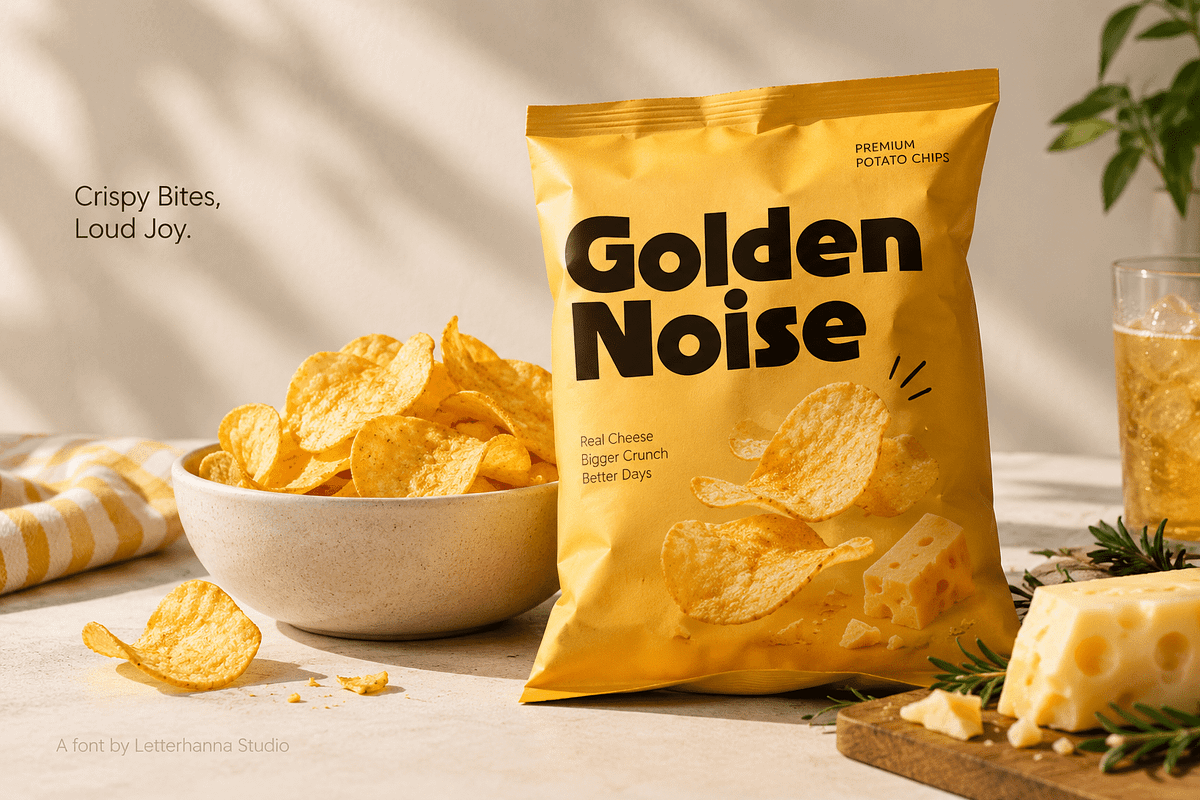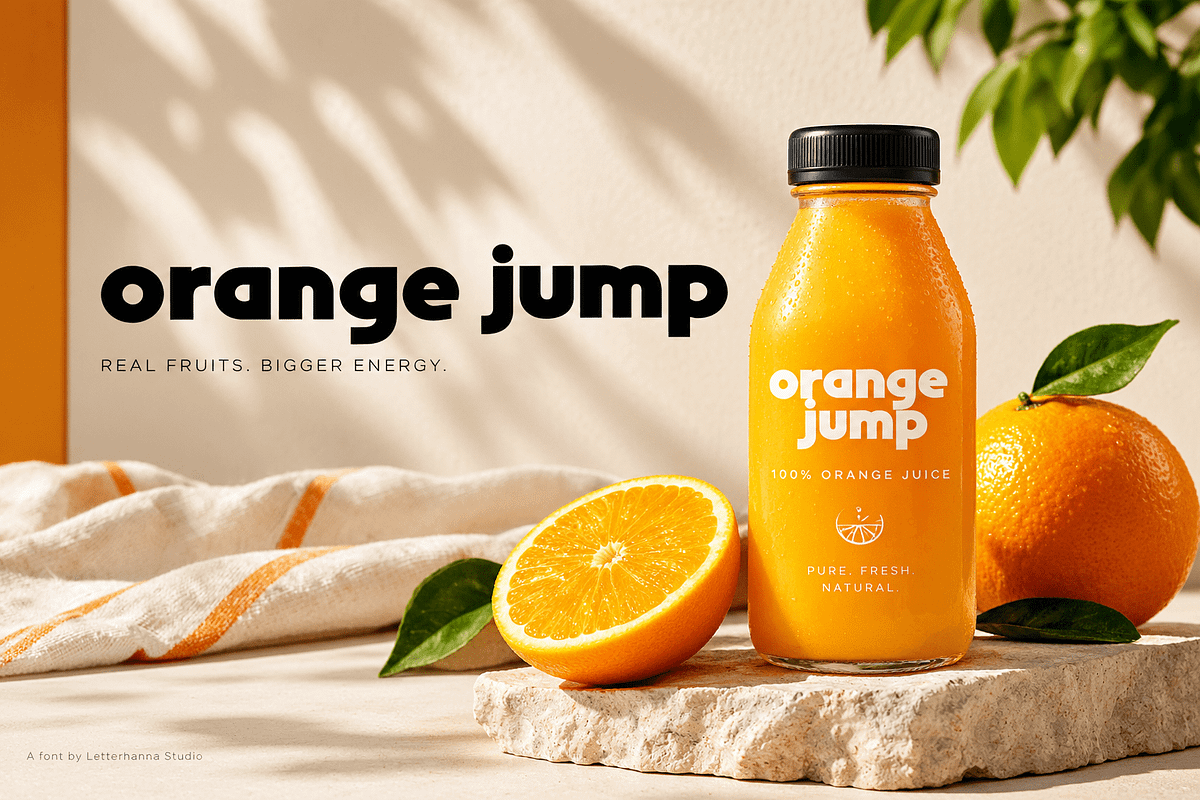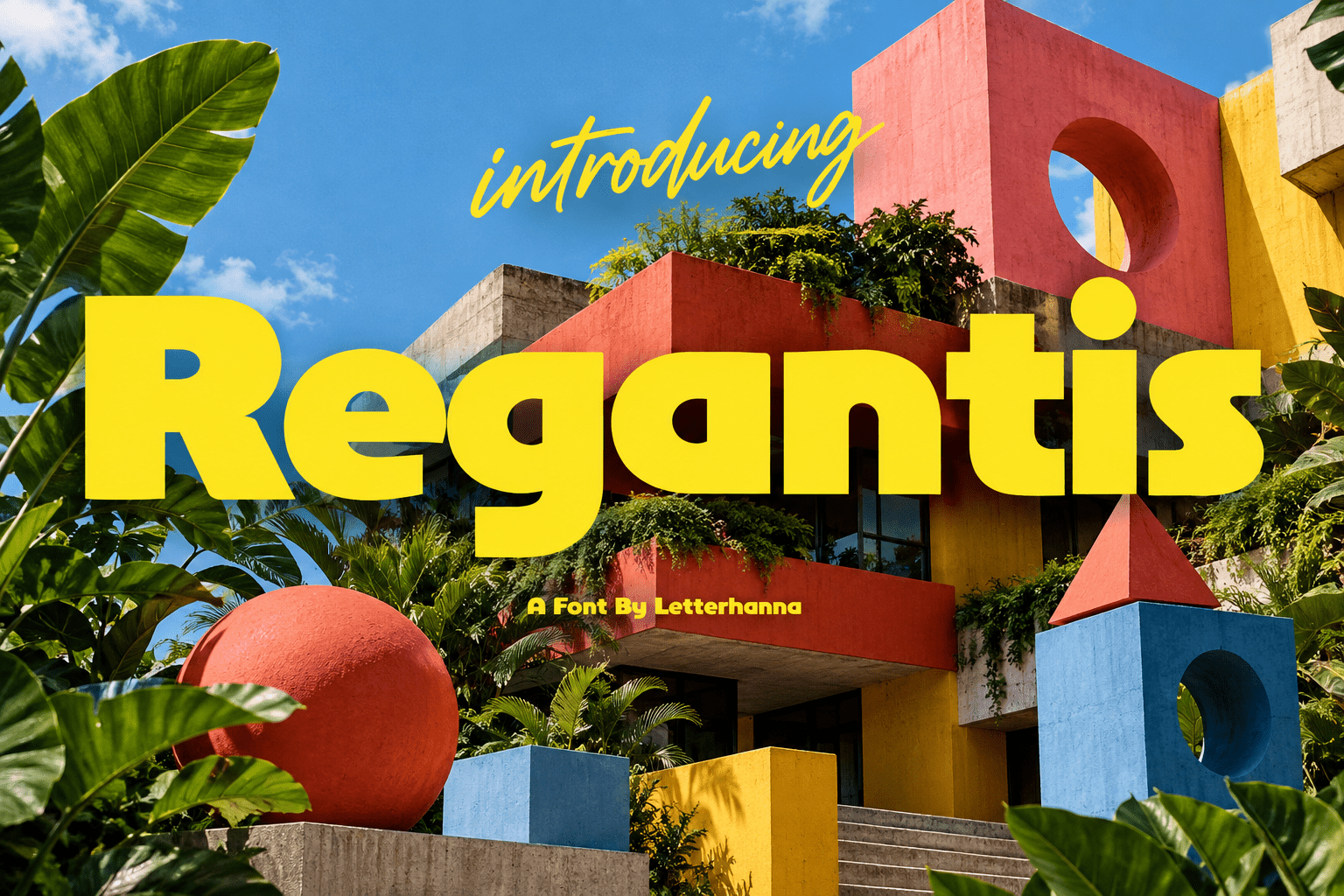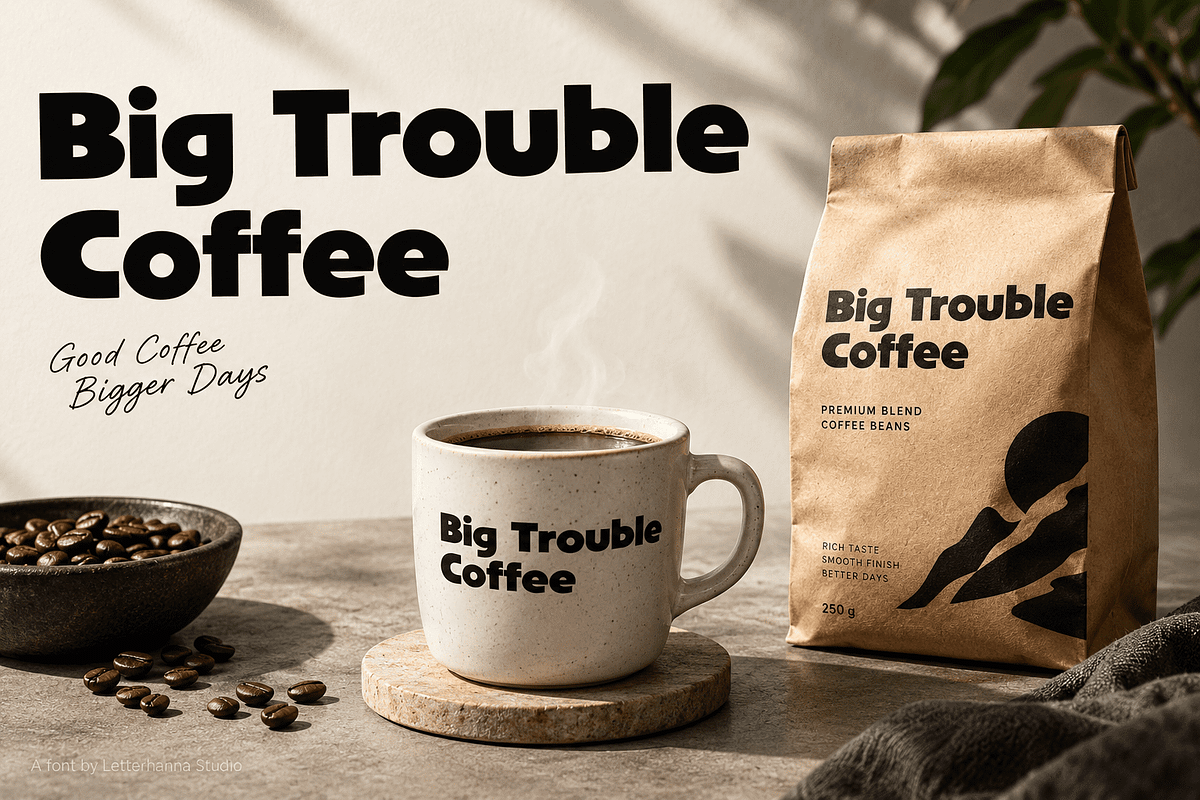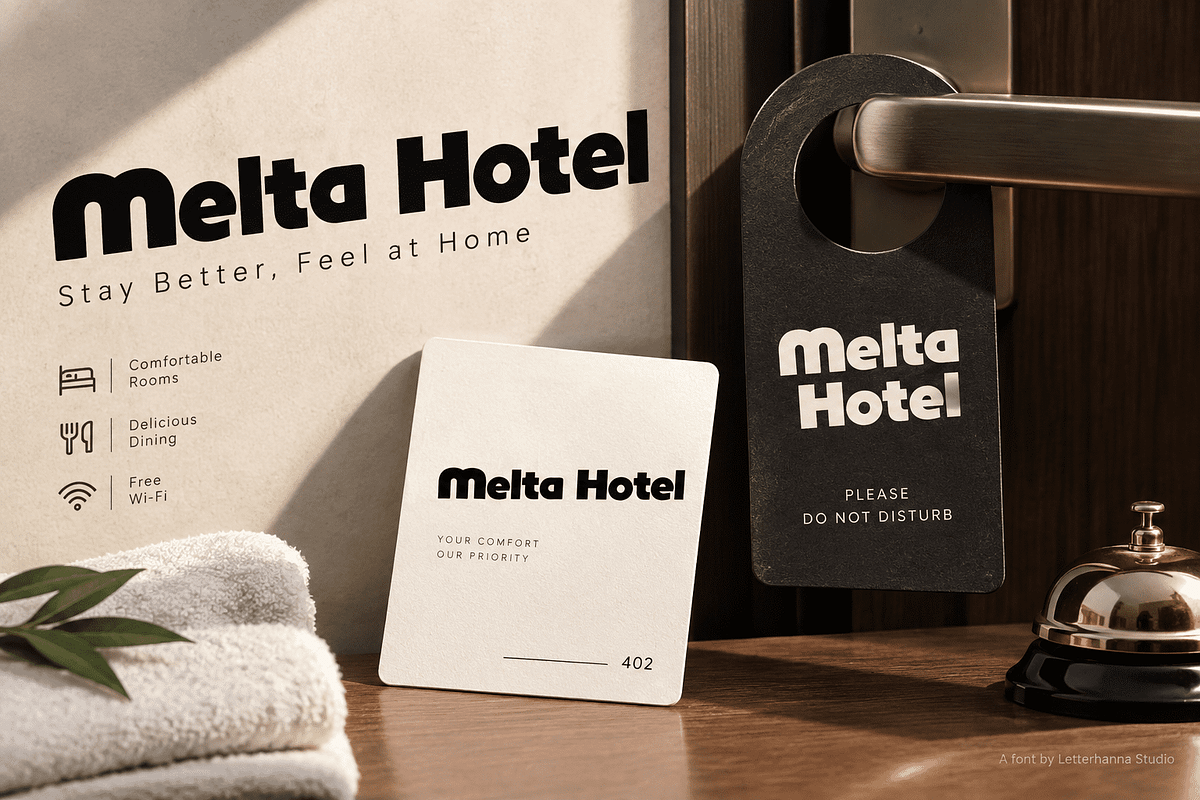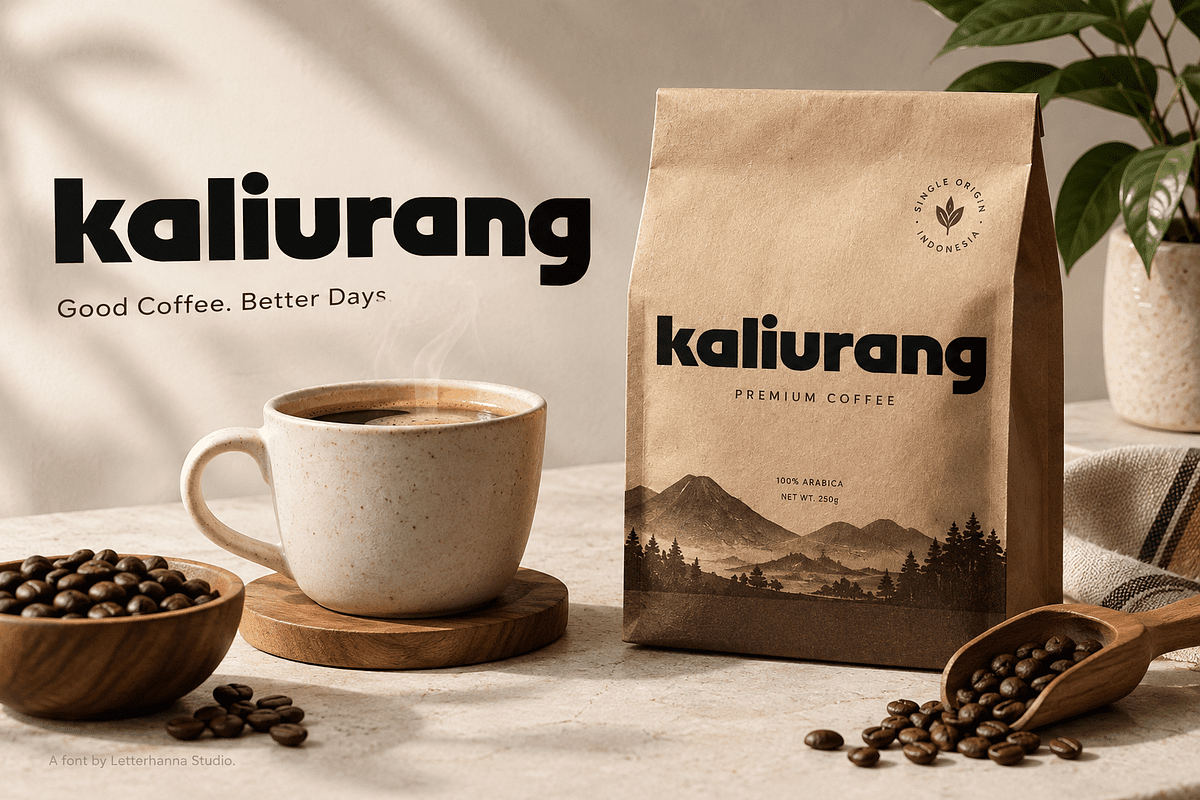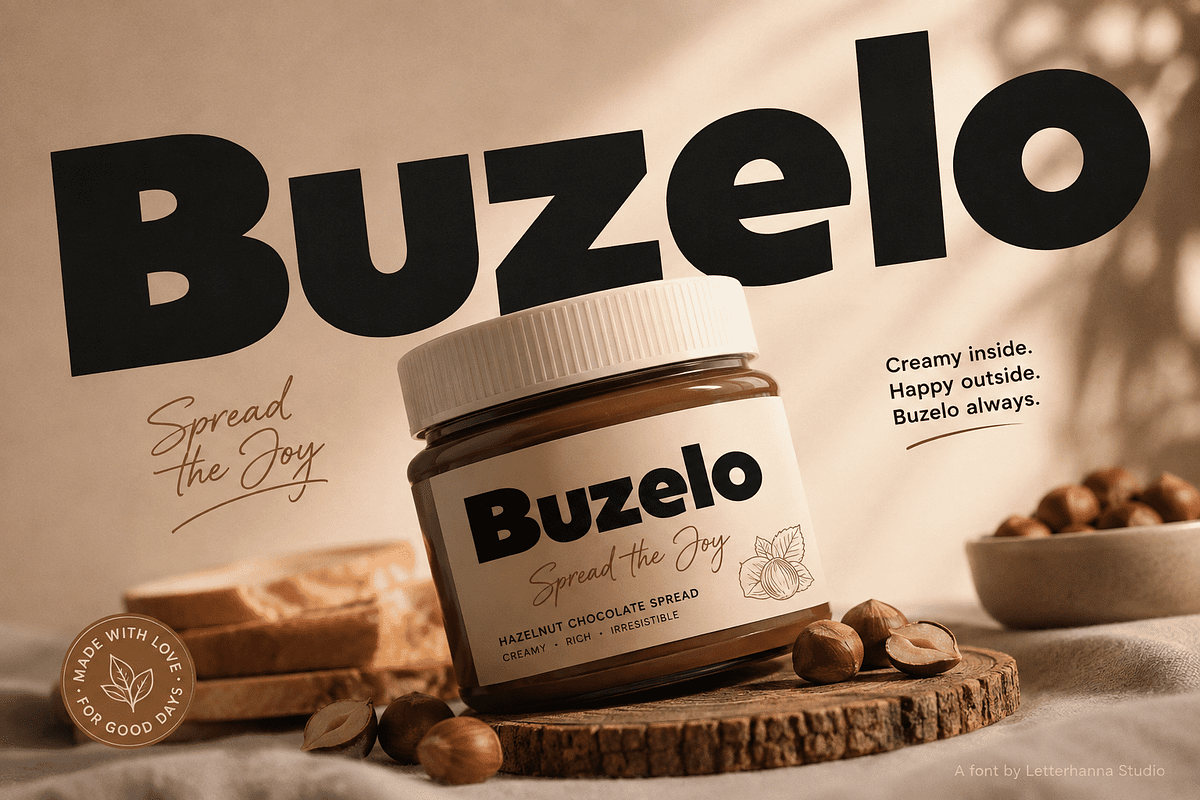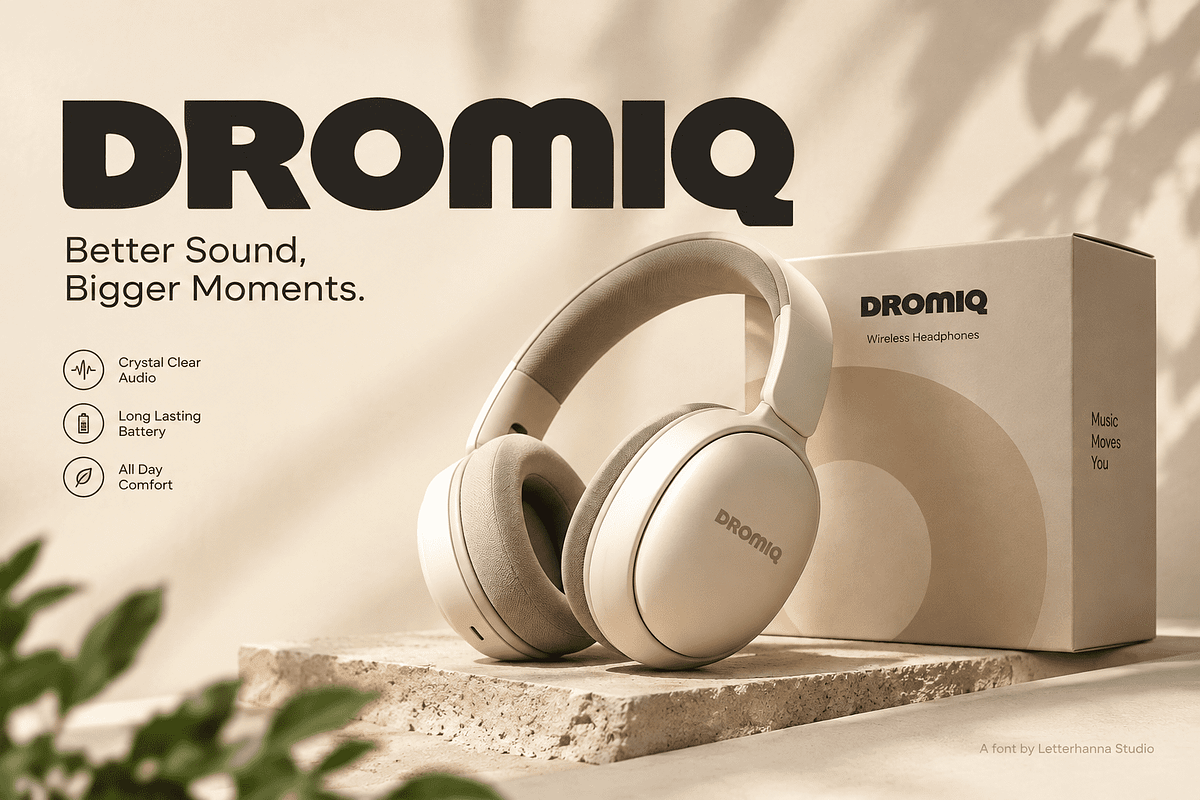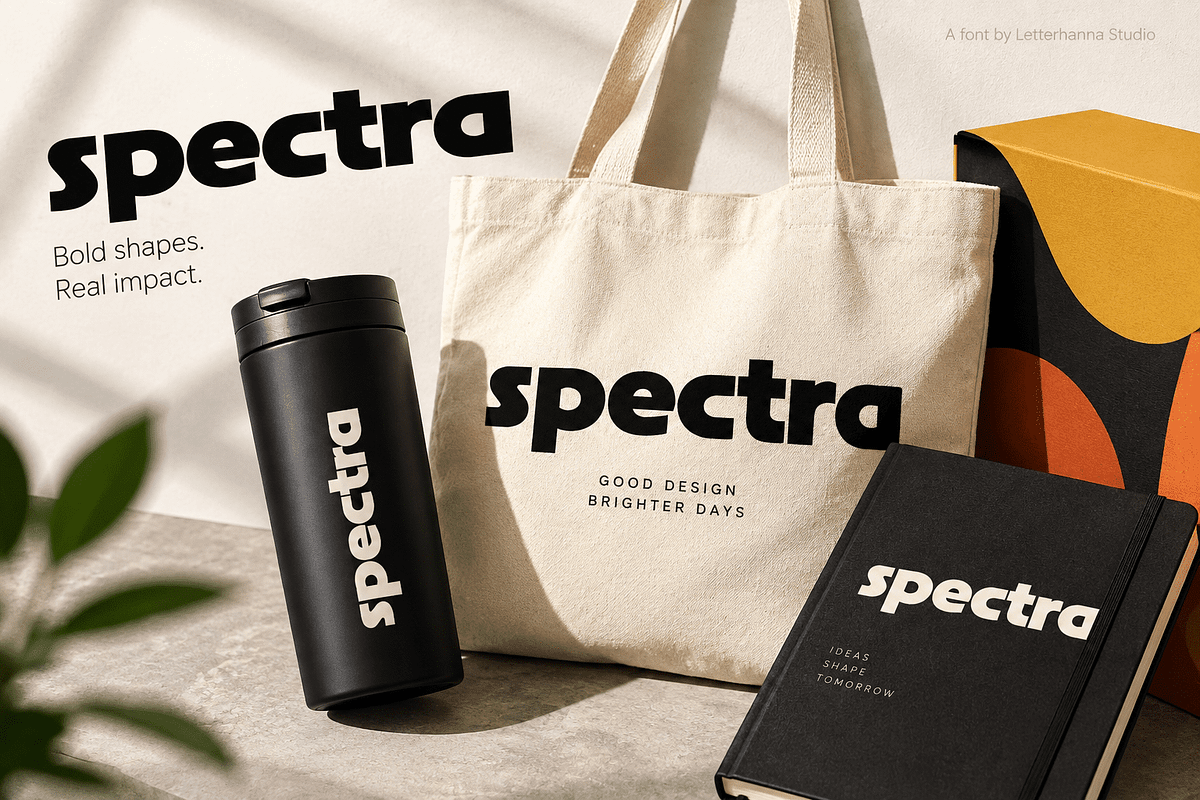
Regantis Geometric Font
What happens when geometric structure meets oversized, playful shapes?
You get Regantis—a bold display typeface created for designs that refuse to blend into the background.
Regantis uses strong geometric construction, thick strokes, rounded forms, and distinctive negative spaces to create an instantly recognizable appearance. It feels modern, experimental, quirky, and confidently unconventional.
More Than Just a Bold Font
A good bold font grabs attention. A great one gives the viewer a reason to keep looking.
Regantis pushes familiar geometric forms into exaggerated proportions, creating a visual rhythm that feels both structured and unpredictable. The result is a typeface with a strong graphic personality and a touch of futuristic nostalgia.
Its vibe is:
Bold and confident
Playful and quirky
Modern and experimental
Futuristic with a retro edge
Designed for Big Visual Impact
Regantis is especially effective when typography becomes the main character of the design.
Use it as a poster font for striking campaigns, a logo font for unconventional brands, or as a headline typeface when ordinary typography feels too predictable.
It can work beautifully across:
Posters and advertisements
Branding and logos
Packaging
Fashion graphics
Music covers
Editorial headlines
Social media campaigns
When Safe Design Isn't Enough
Picture a mysterious hotel sign glowing above a bizarre futuristic building. The architecture is interesting—but the typography is what makes you stop.
That's the power of Regantis.
It transforms a simple word into something that feels designed, branded, and alive. Instead of asking viewers to simply read the message, it gives them something to remember.
When your design needs more personality, more impact, and a little controlled weirdness, Regantis is ready.
Make the typography impossible to ignore.